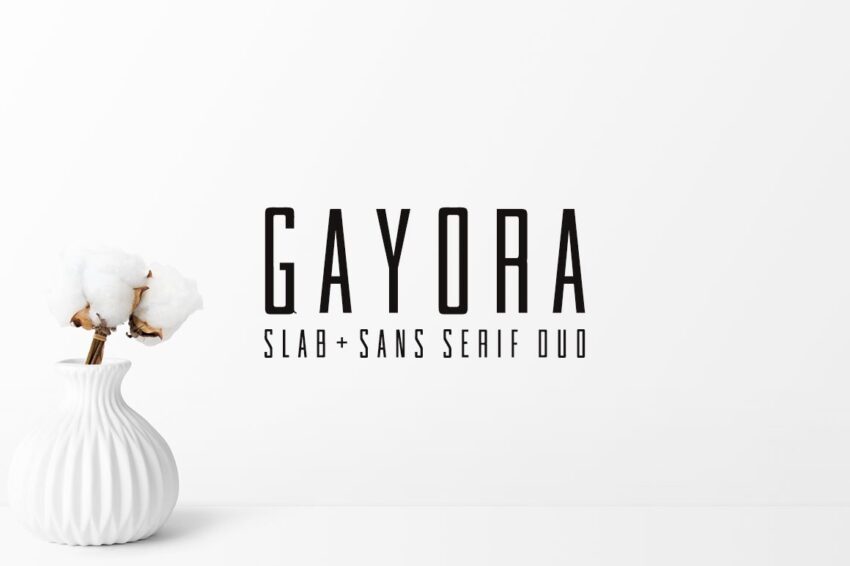
Introduction to Gayora Font
The Gayora Duo is a clean, vibrant font with a minimal style.
This serif font comes as a sans & slab serif and has a strong characters, making it very useful for projects that need to have an elegant style but also need to leave an impression .